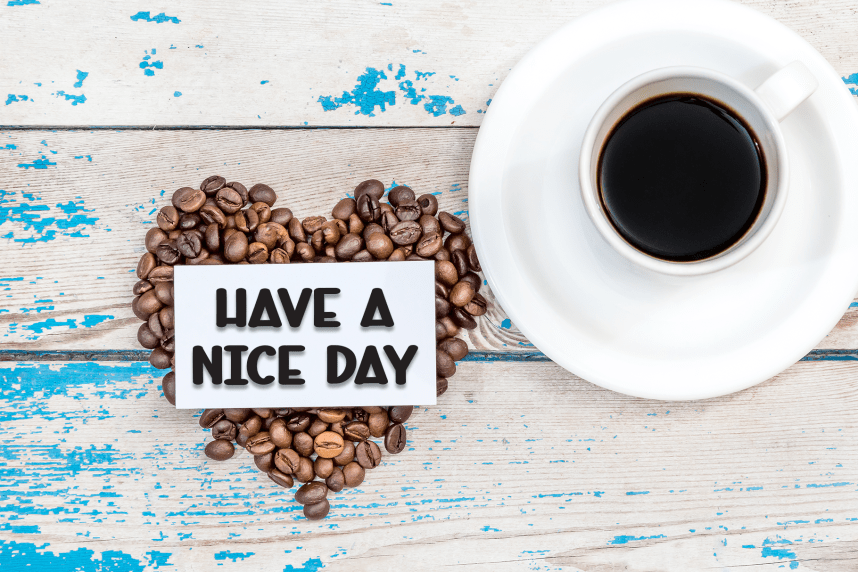
Varsity Farmhouse – Modern Style Font
Varsity Farmhouse – Modern Style Font is a sweet and friendly handwritten display font. Cute and fun, this font is ideal for writing wedding invitations, cards, or any other design that might need a playful touch!